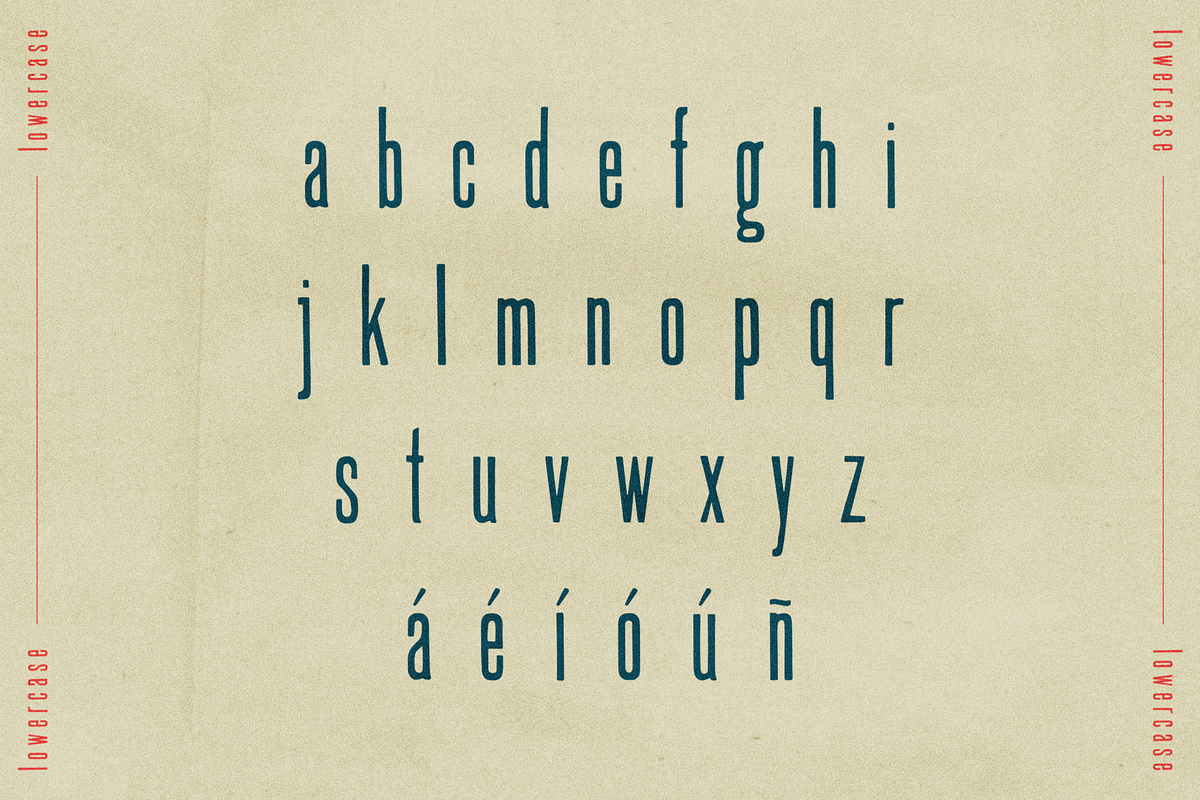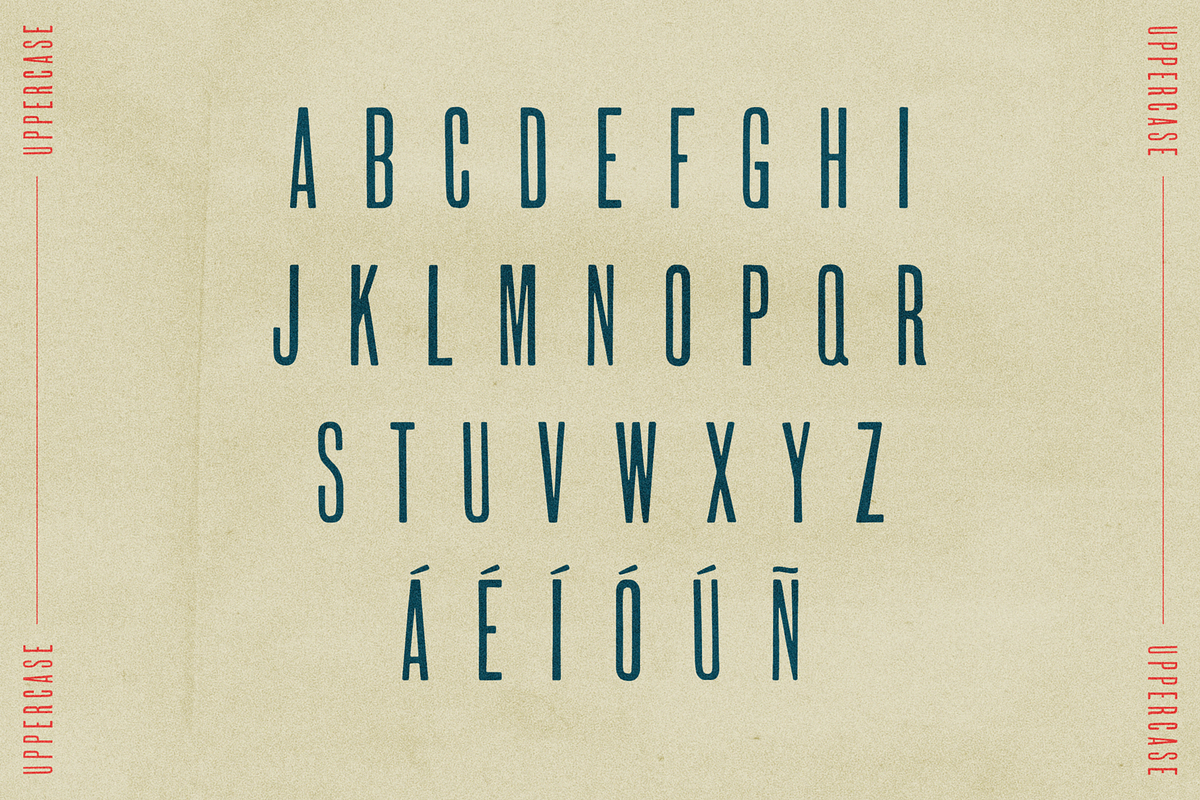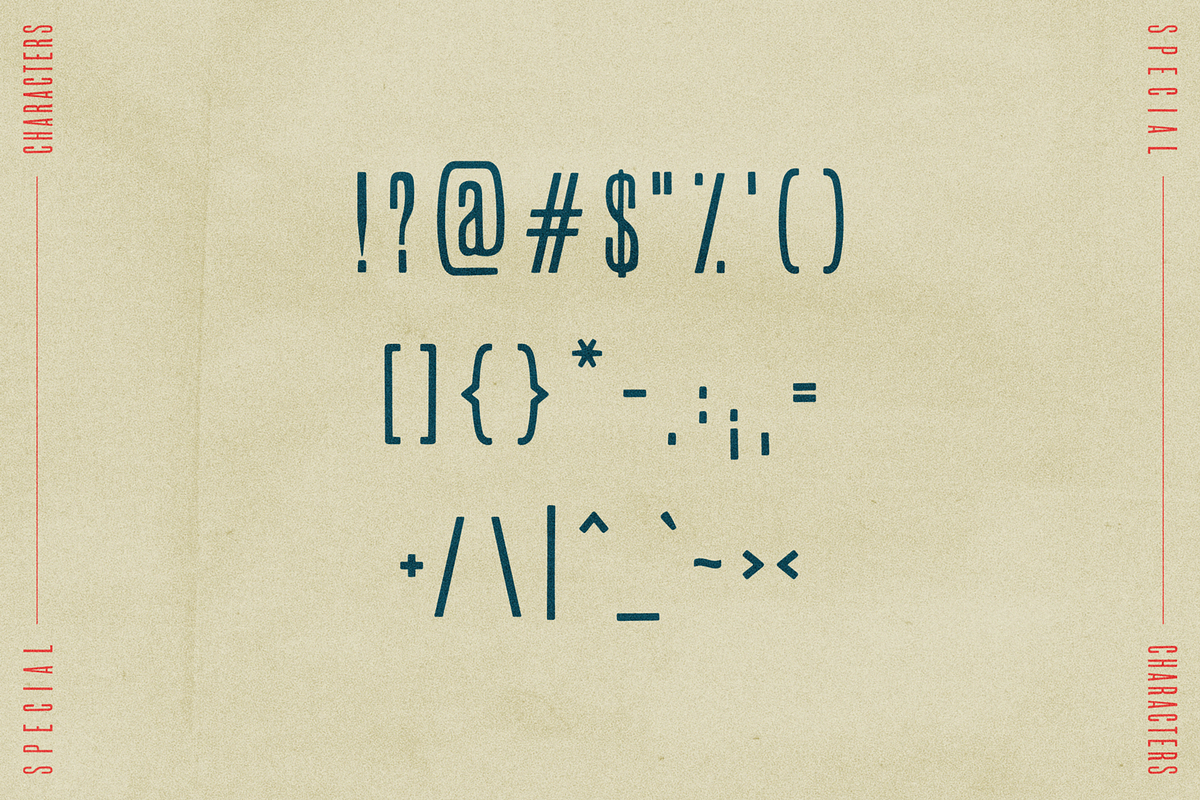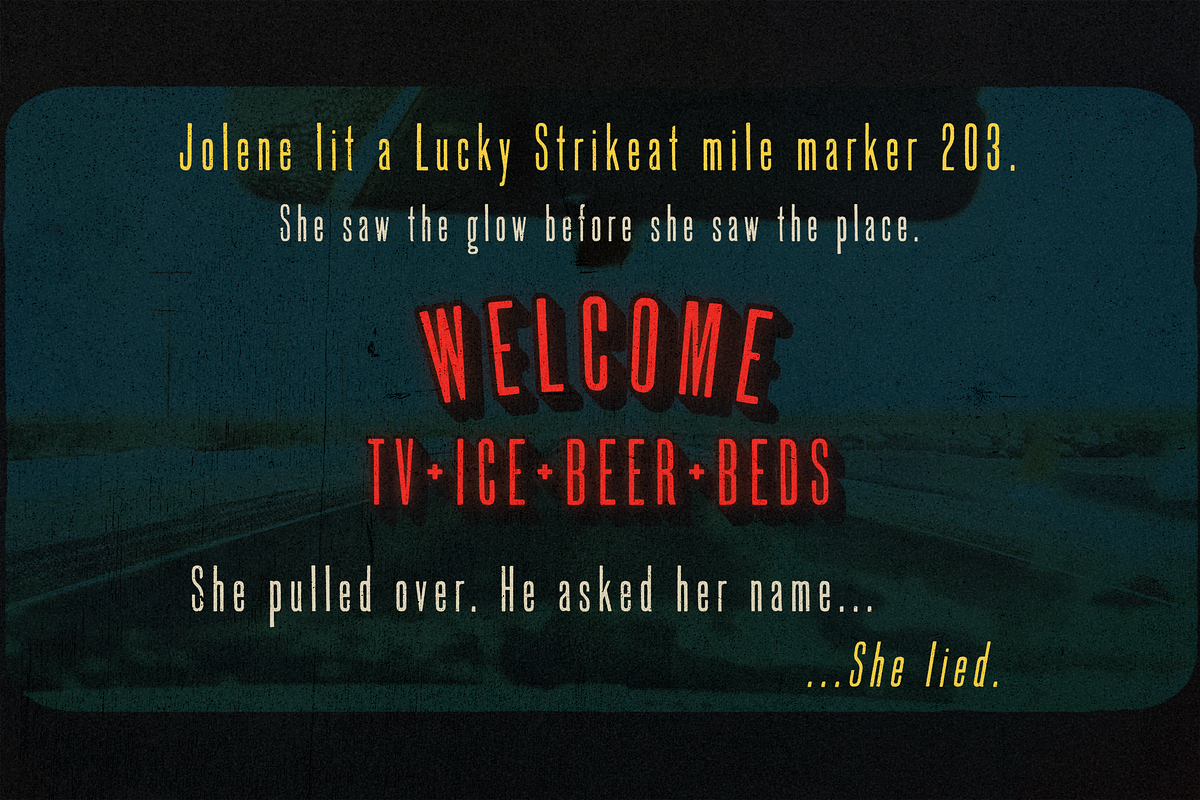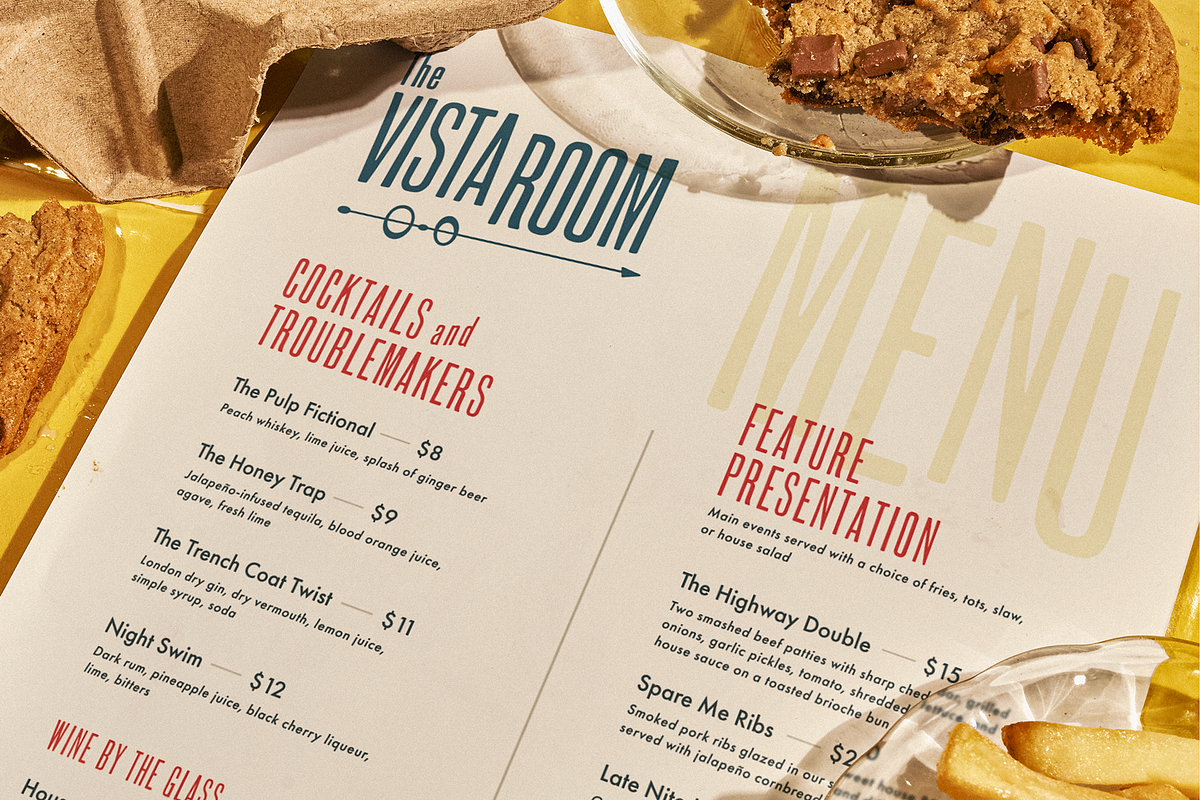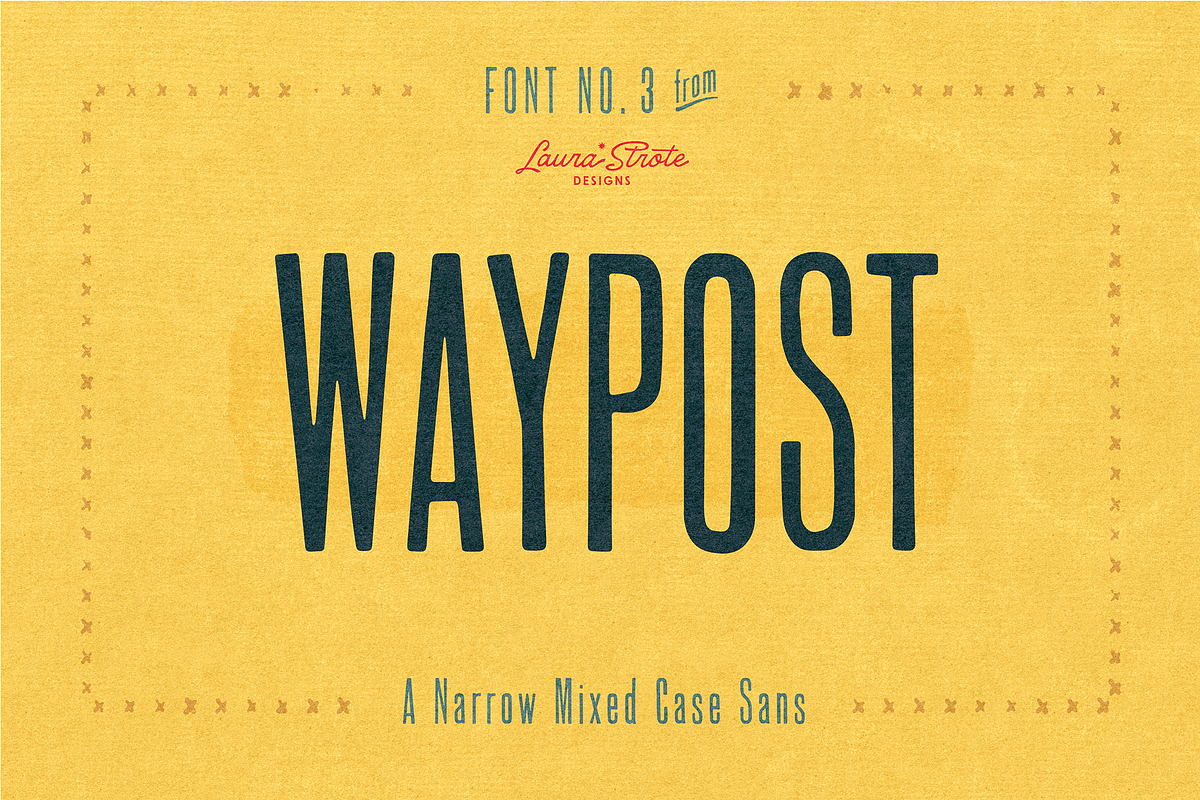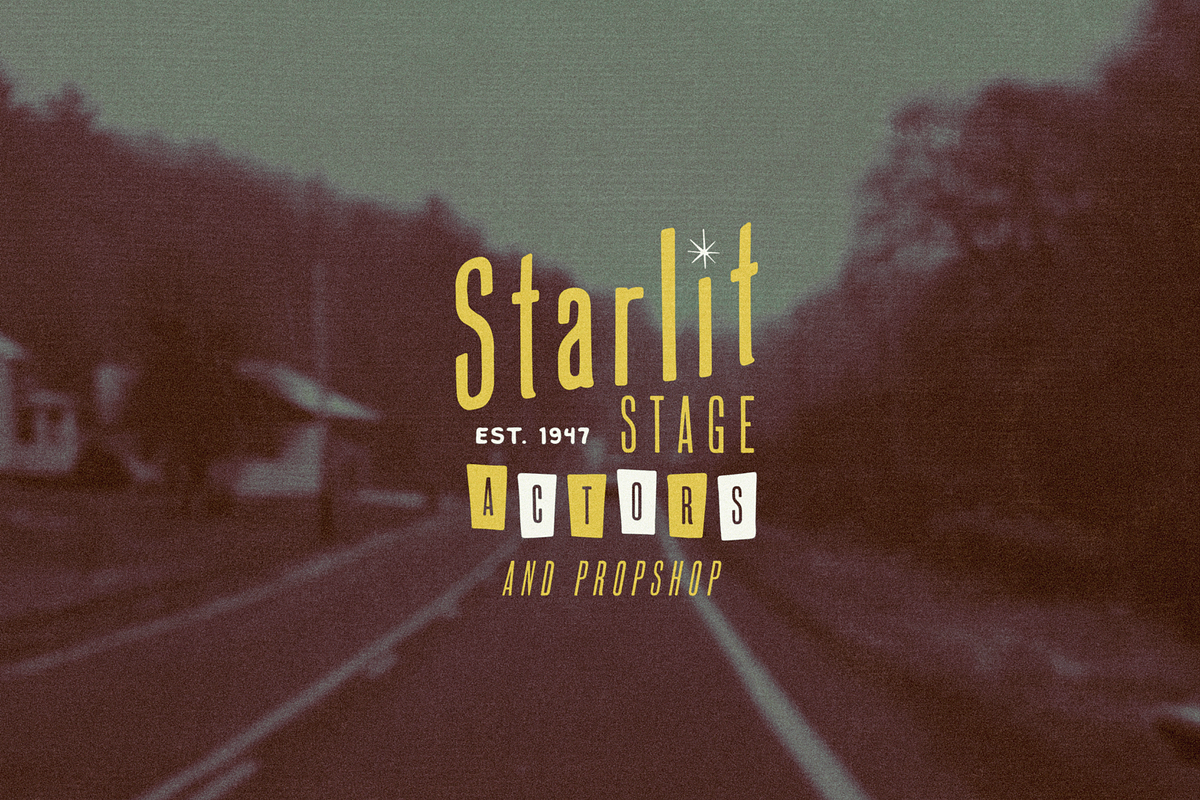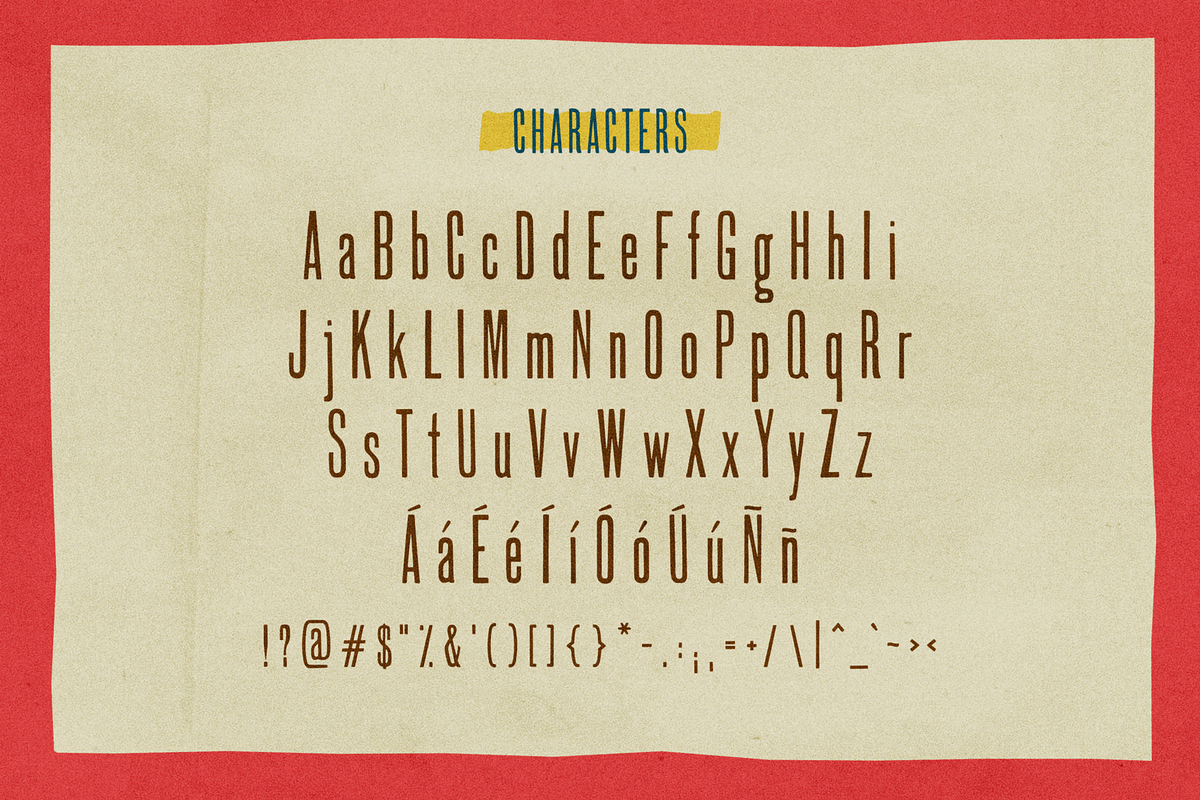
WAYPOST | A Retro Narrow Sans Serif
Waypost is a tall, narrow sans serif font with mixed-case letterforms and a gritty personality. Designed for posters, logos, menus, packaging, editorial layouts, and retro branding, it brings cinematic attitude and vintage character to each project.
Inspired by roadside motel signs, mid-century diner menus, and old film title cards, Waypost was made for storytellers, scene-setters, and visual world builders. It’s bold, sharp, and just the right amount of funk.
With both uppercase and lowercase characters, you can go clean or offbeat, subtle or loud. It works beautifully for display design, faux movie promos, nostalgic layouts, and anywhere you want strong visual identity without losing edge or charm.
Full A–Z uppercase & lowercase
Accented characters (á, é, í, ó, ú, ñ)
Punctuation + symbols
Retro & vintage-inspired branding
Poster design, album art, merch
Menus, labels & product packaging
Editorial spreads & print layouts
Film-inspired creative direction